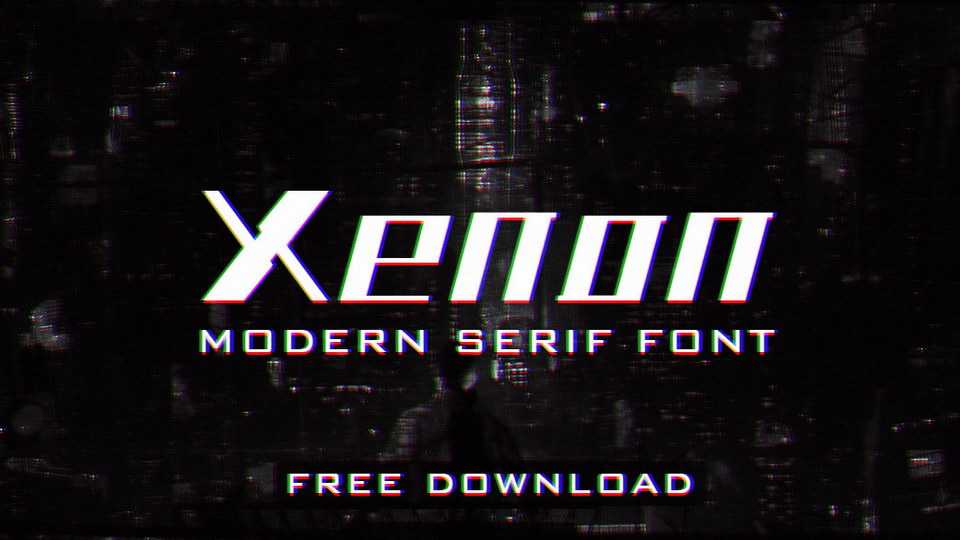
Download Xenon typeface, a modern sans serif font family in two weights. Xenon features a futuristic and minimal look that will be perfect for many projects: fashion, magazines, logo, branding, headlines, short text, posters, ads and more.
Designer: Satheesh Chandran